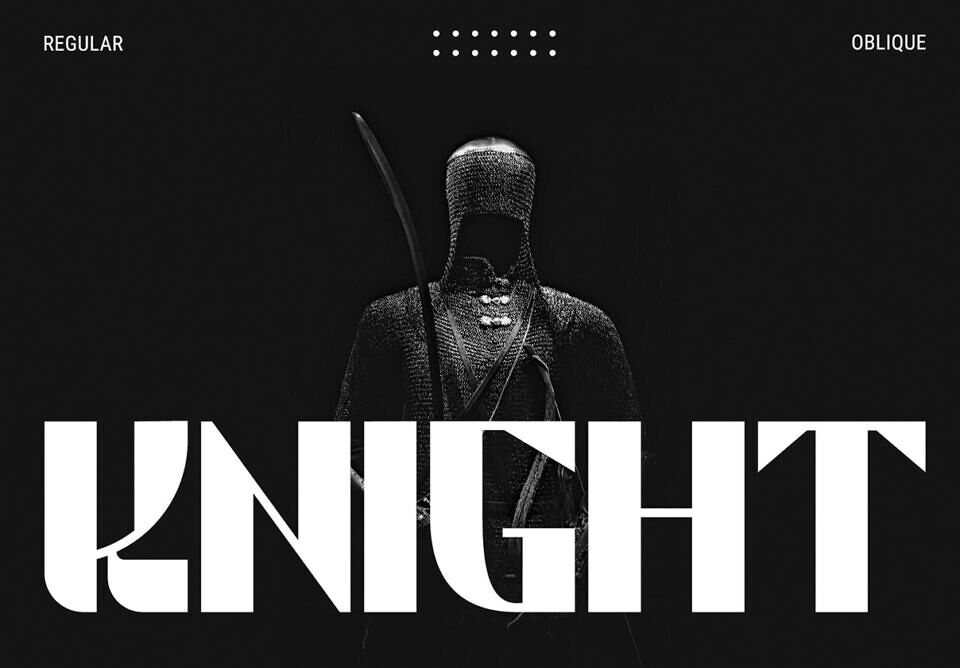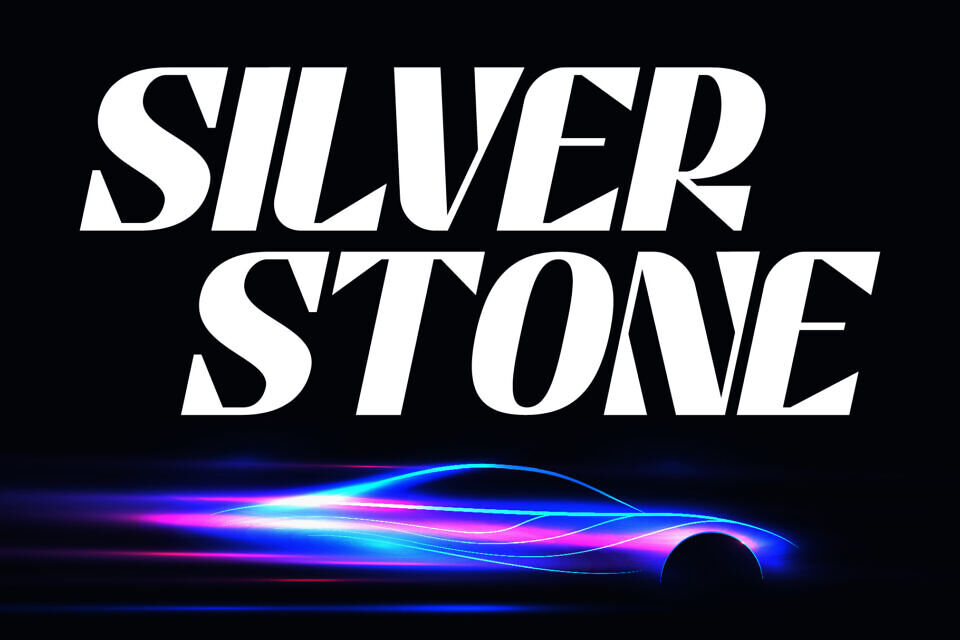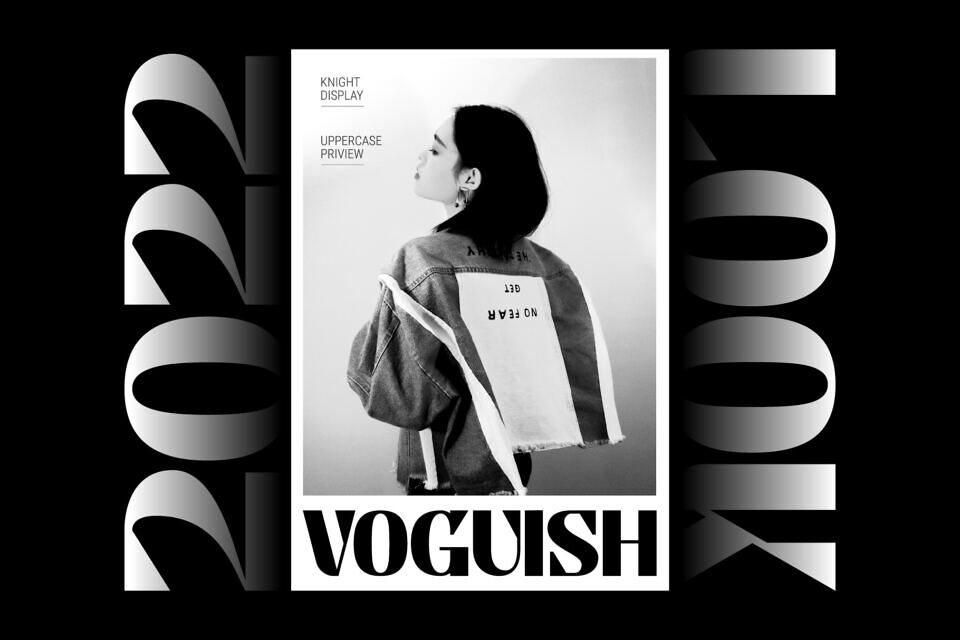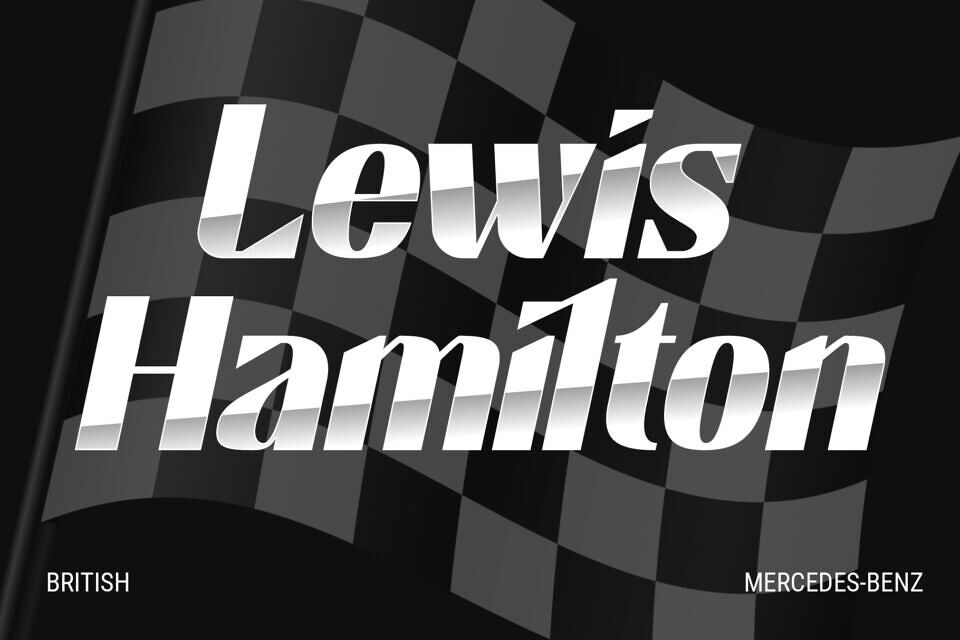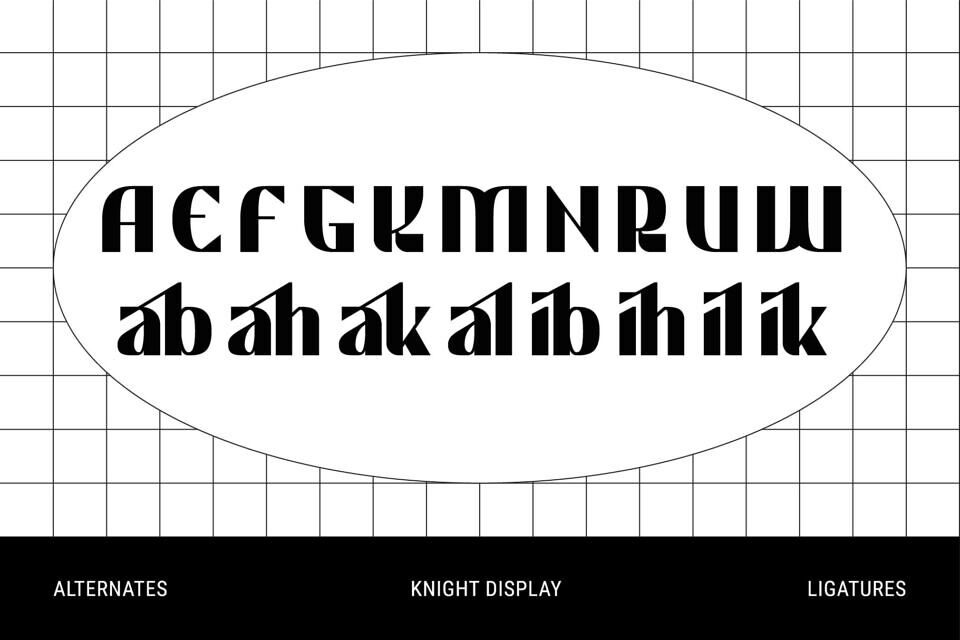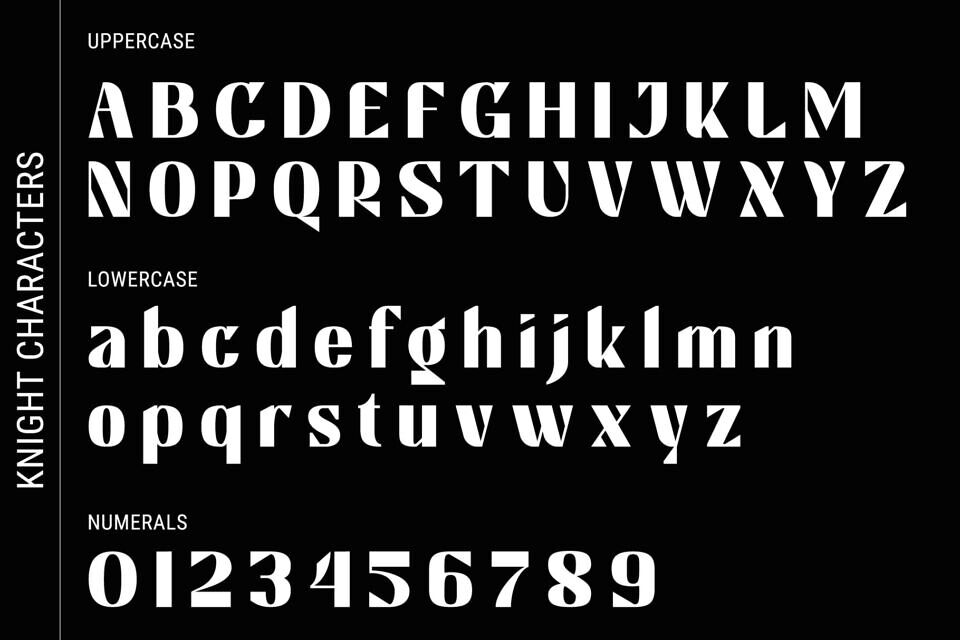
Knight is a bold and powerful display font inspired by medieval strength and modern precision. With its sharp cuts, geometric edges, and commanding presence, this typeface embodies courage, resilience, and authority.
Designed for designers who want to make a striking impression, Knight captures the balance between armor-like toughness and refined design sensibility. Its strong vertical lines and angular details give it a dynamic rhythm, making it perfect for posters, logos, game titles, and cinematic branding.
Available in Regular and Oblique styles, it offers versatility while maintaining its bold identity. Knight is ideal for creative projects that demand drama and sophistication such as esports branding, movie posters, tech campaigns, and luxury streetwear.